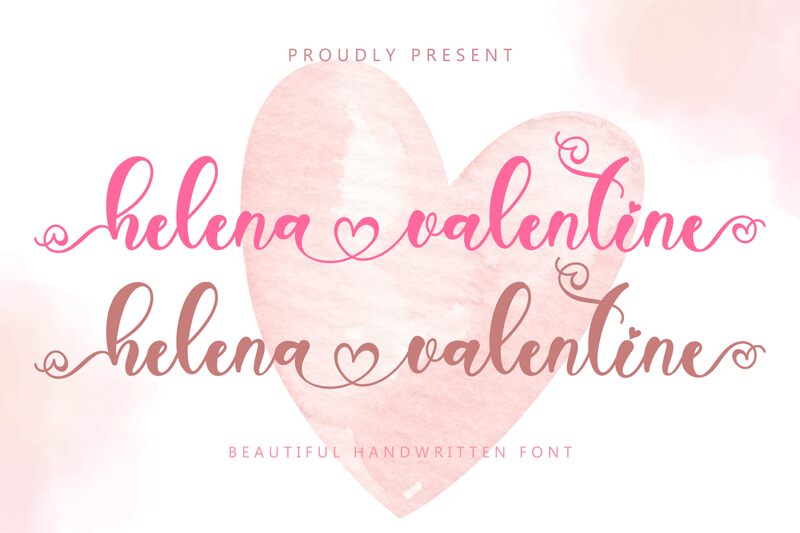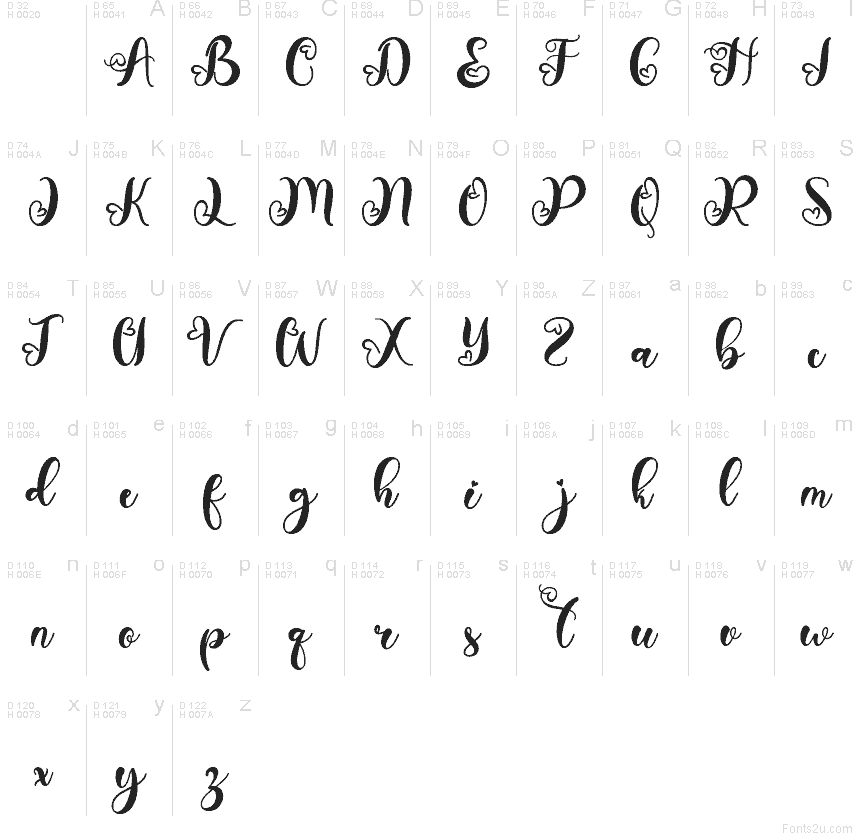
Helena Valentine
Helena Valentine font by Yoga Letter is a free romantic calligraphy typeface with a soft, handwritten touch and playful curls. Flowing strokes, looping swashes, and heart-like flourishes give it that handwritten love-note feel, as if it were inked with a flexible brush pen on smooth paper. The letters connect with an easy rhythm that keeps even elaborate words readable, so you get plenty of drama without losing clarity.
Using Helena Valentine, this free font shines on wedding invitations, Valentine’s cards, love quotes, branding for boutiques, product packaging, event signage, and social media graphics that need a warm, intimate voice. Its decorative curls draw the eye at larger sizes, while a simple sans serif in smaller text makes a clean, modern pairing.